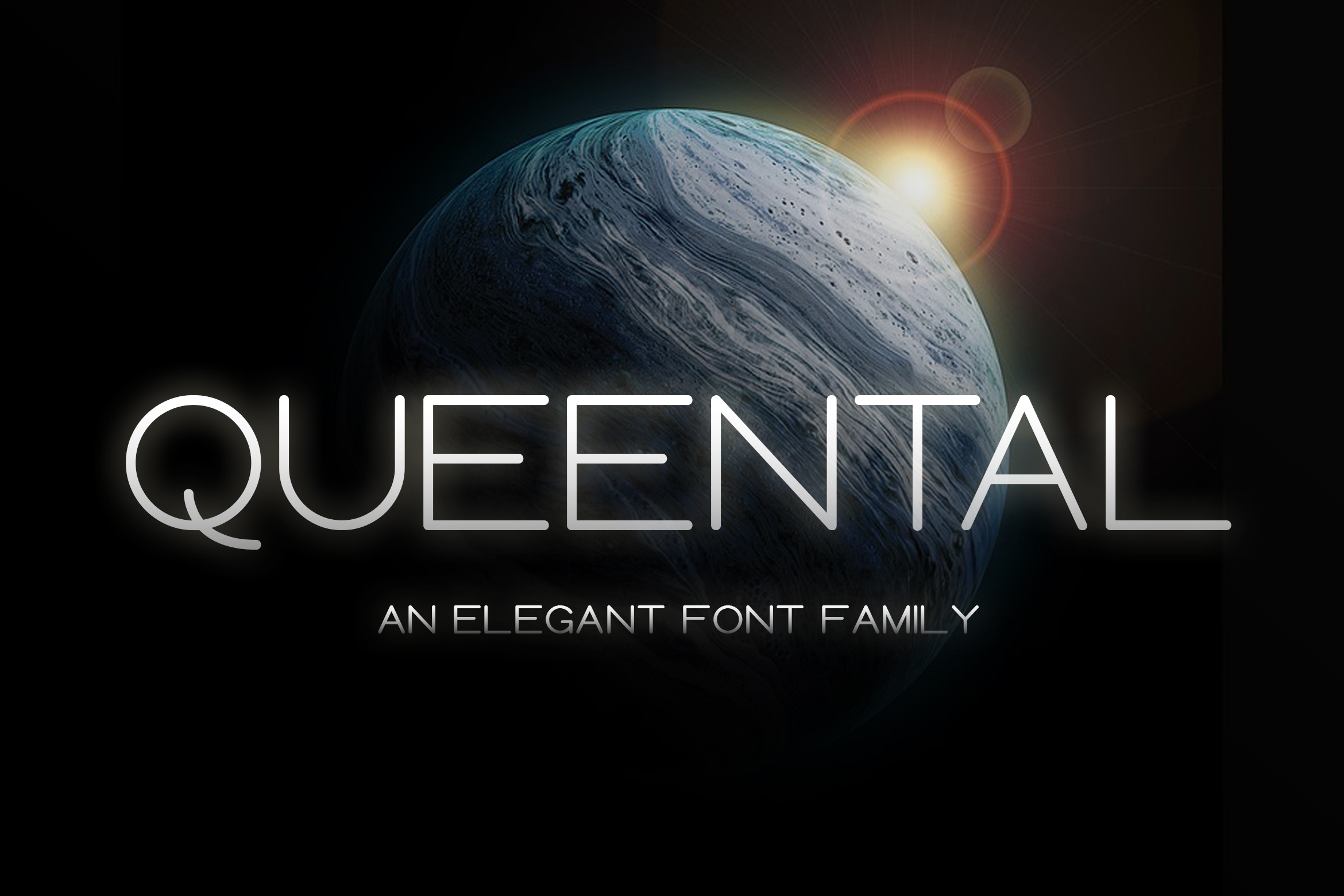
Queental - Elegant Sans Serif Font
Queental is an elegant and smart sans serif font family, perfectly suited for elevating any design idea! Get this font!